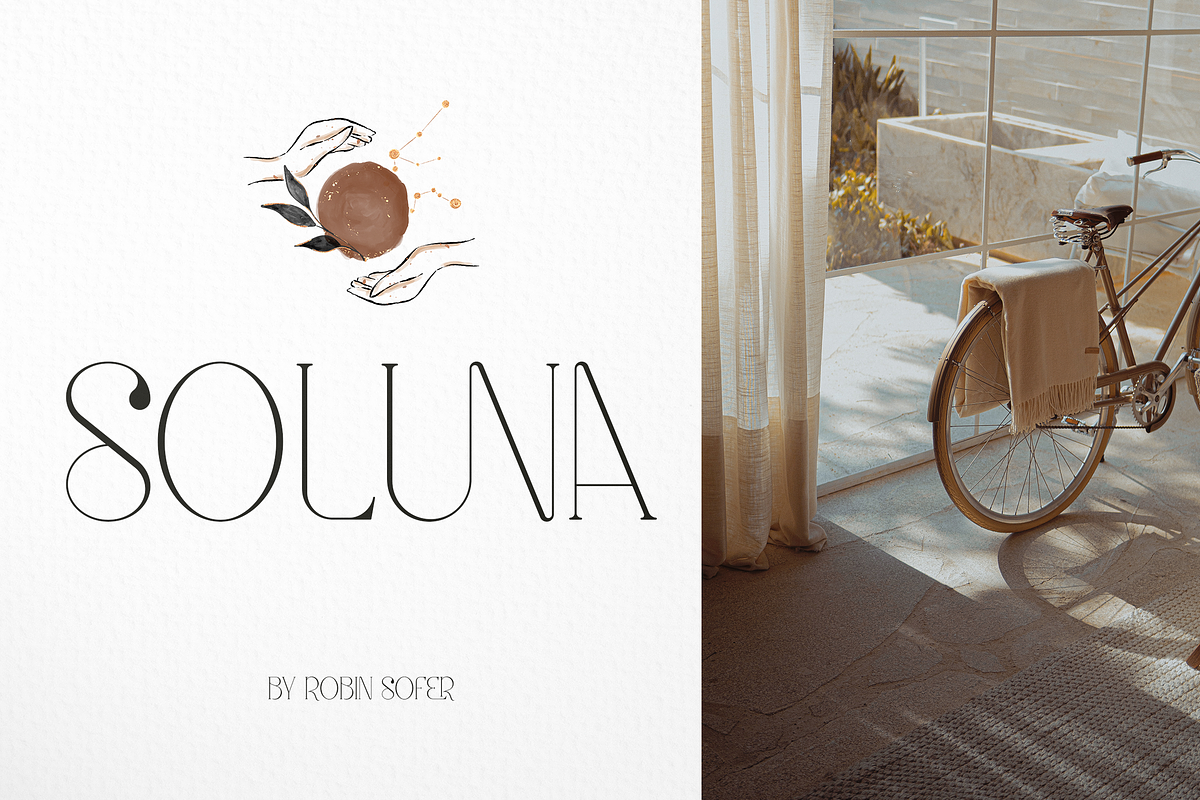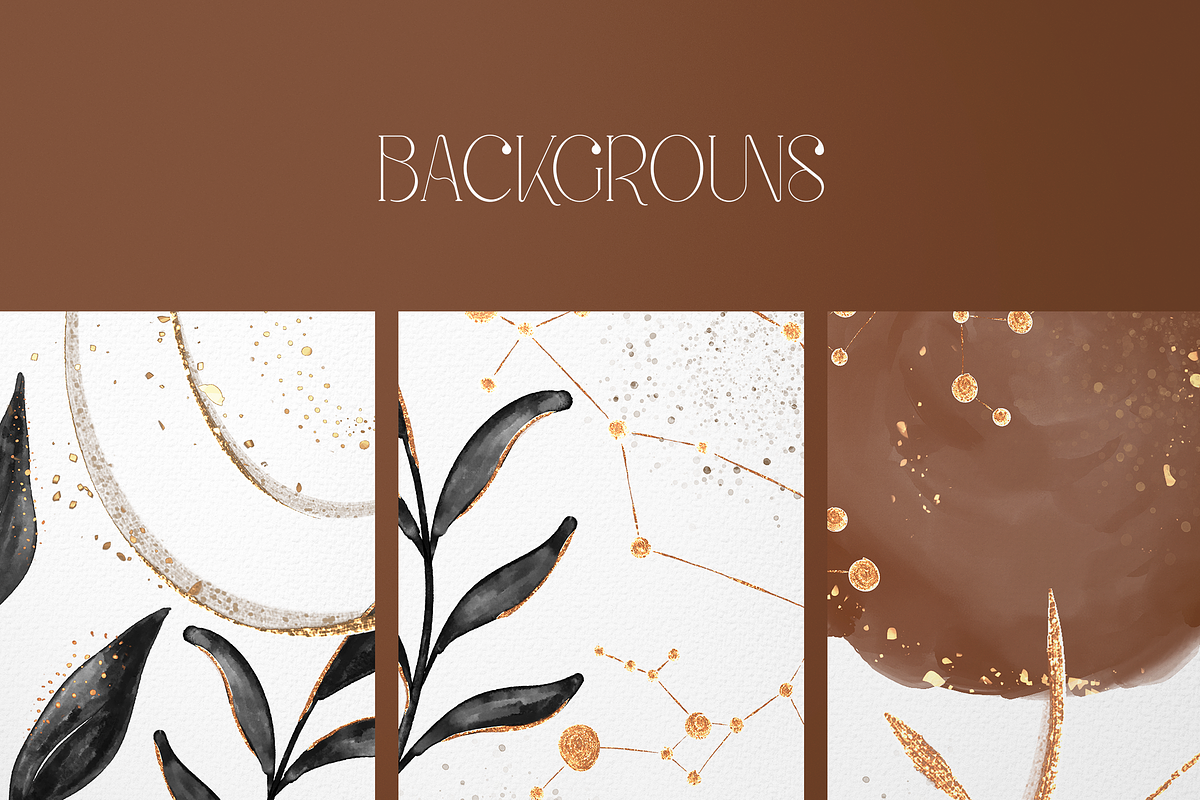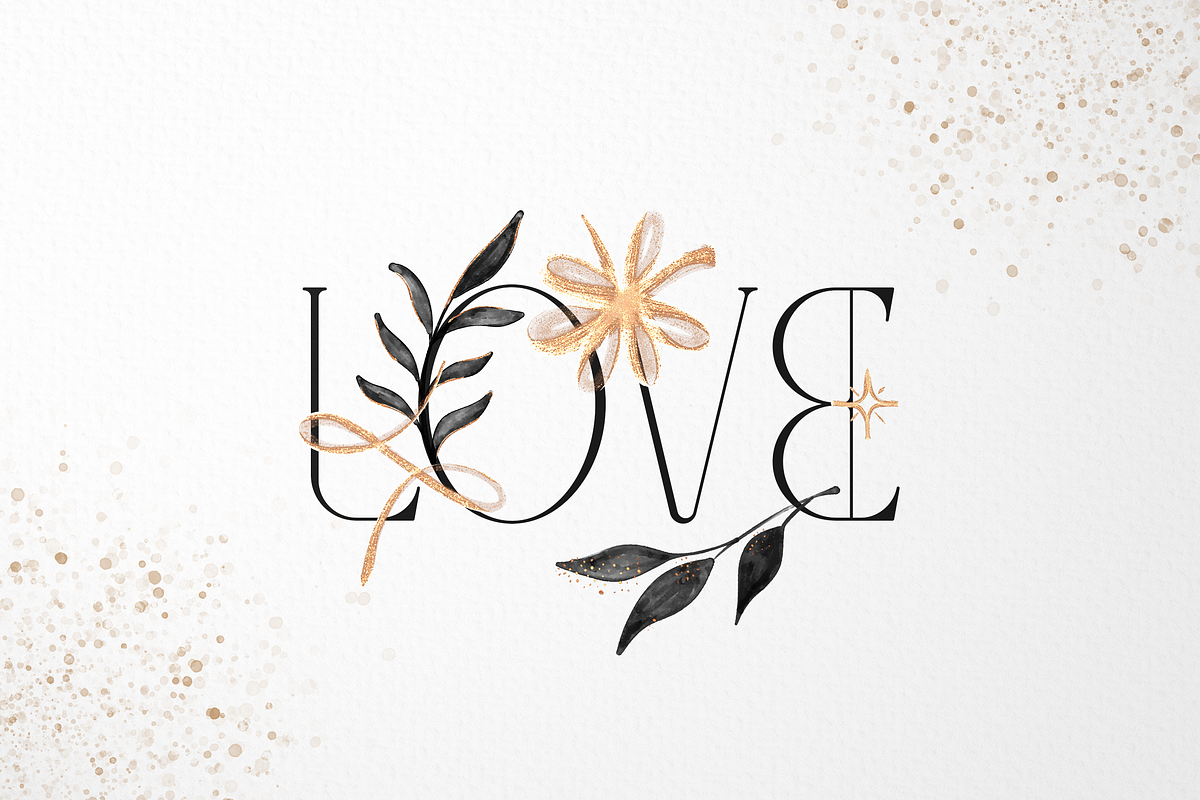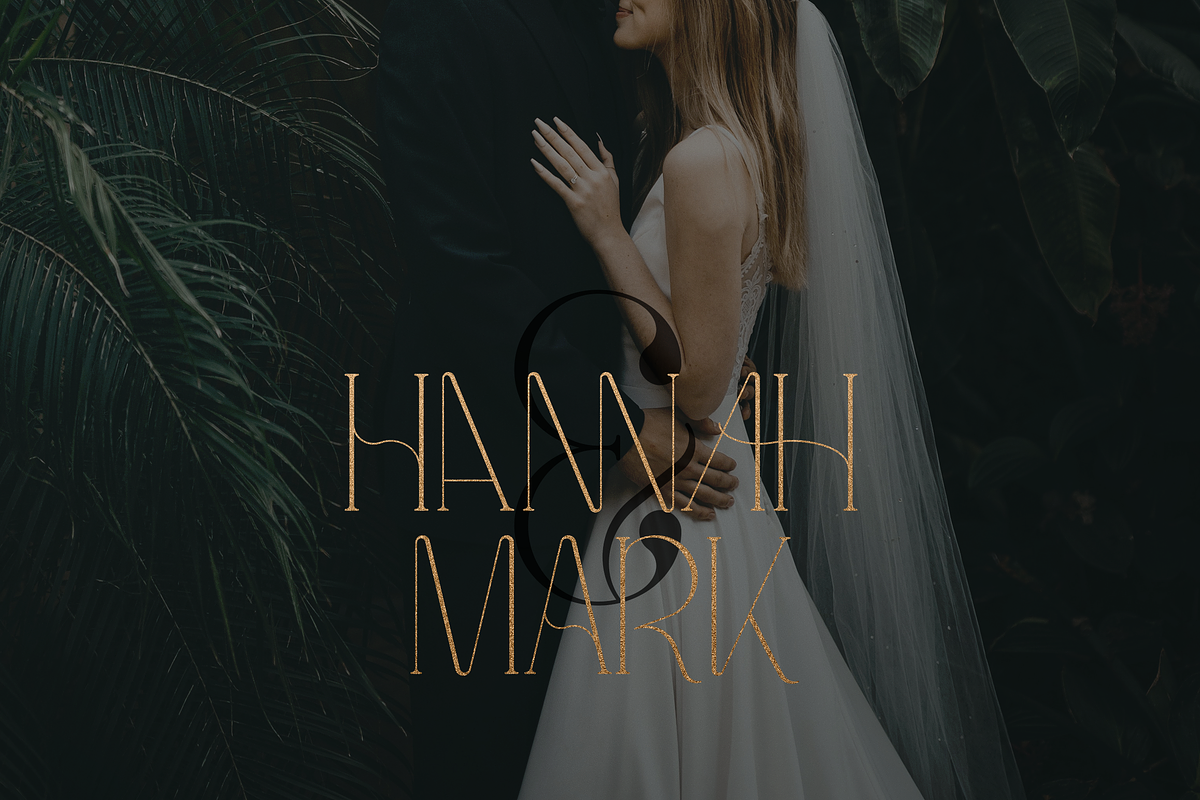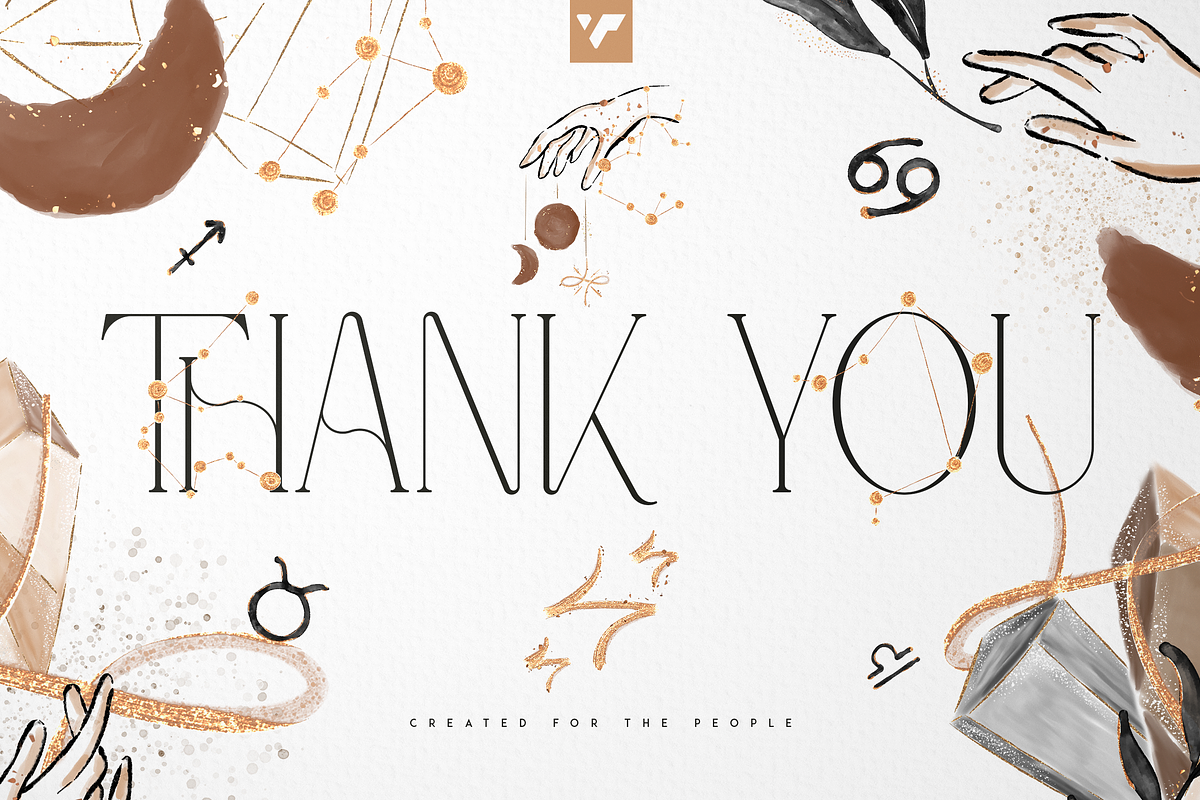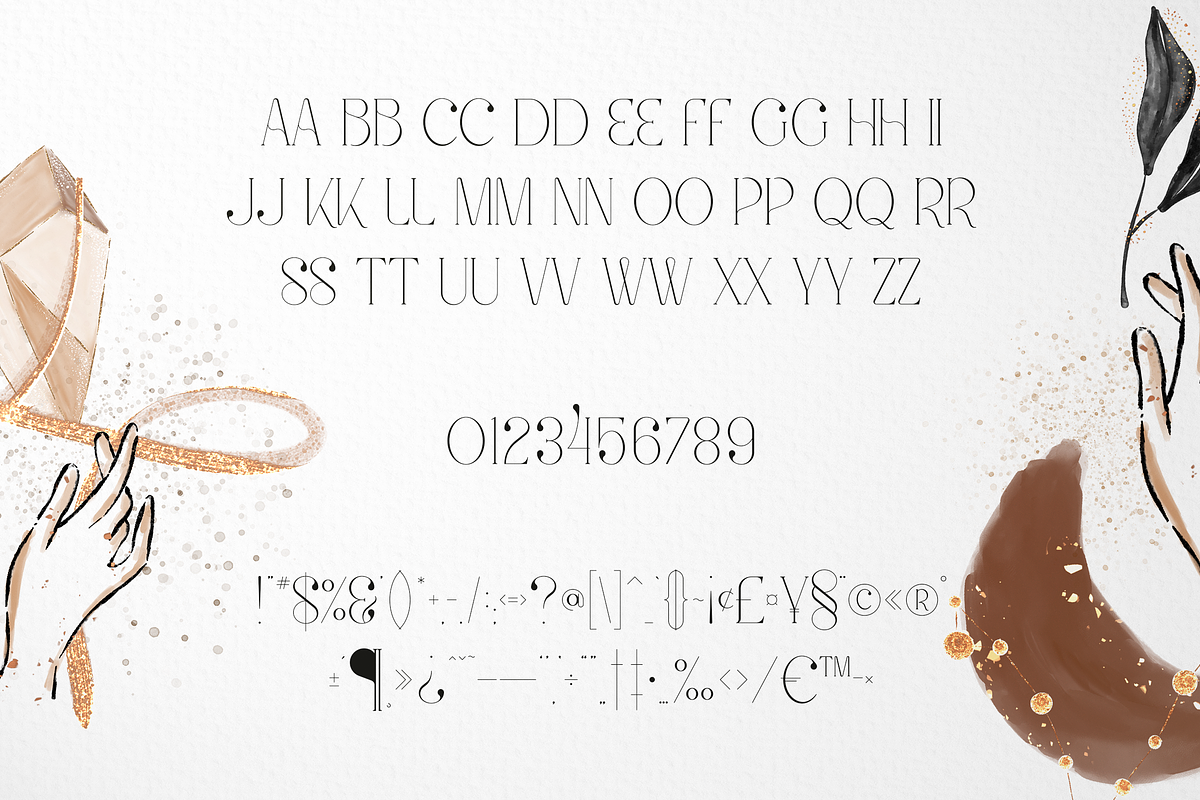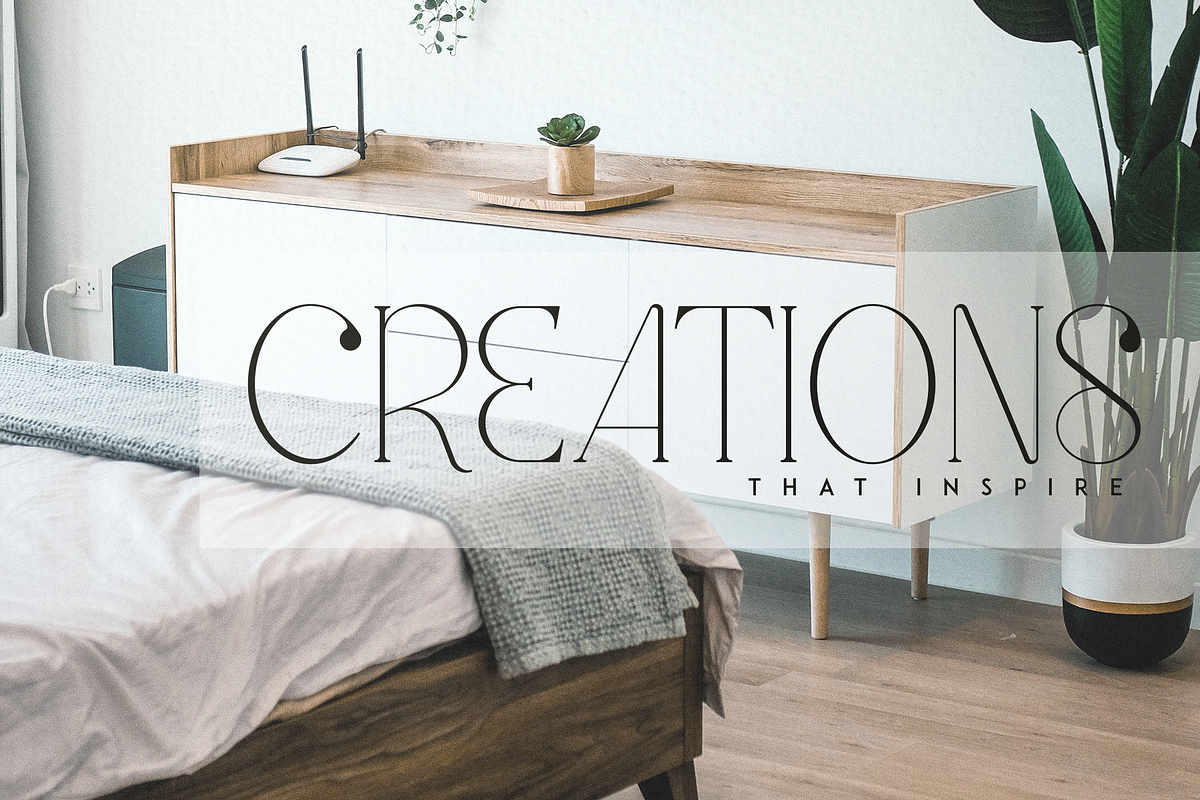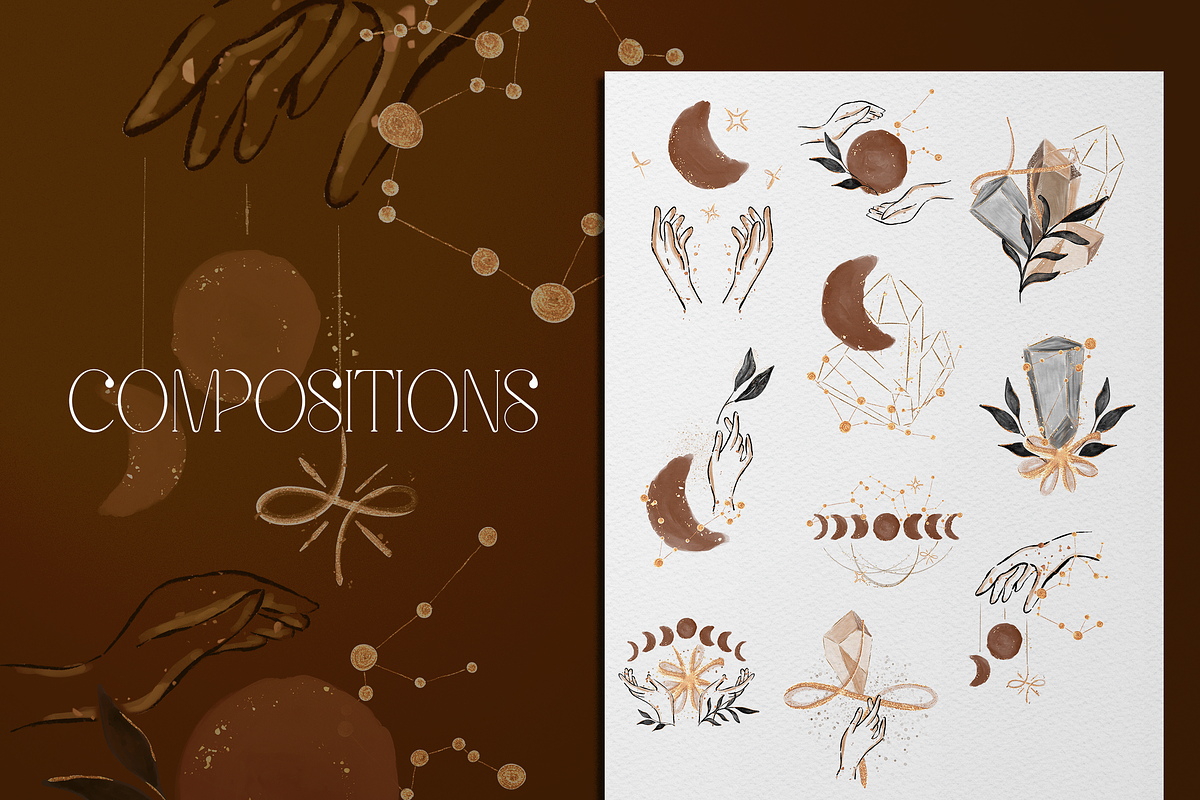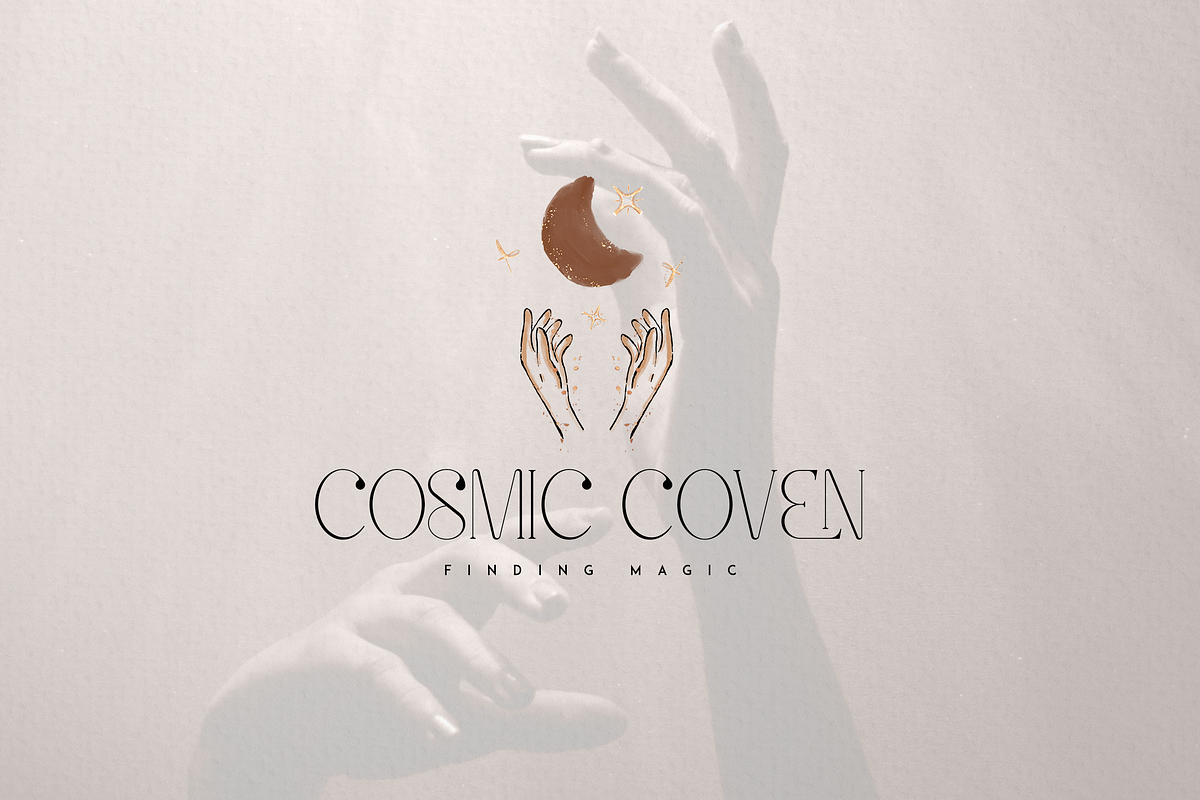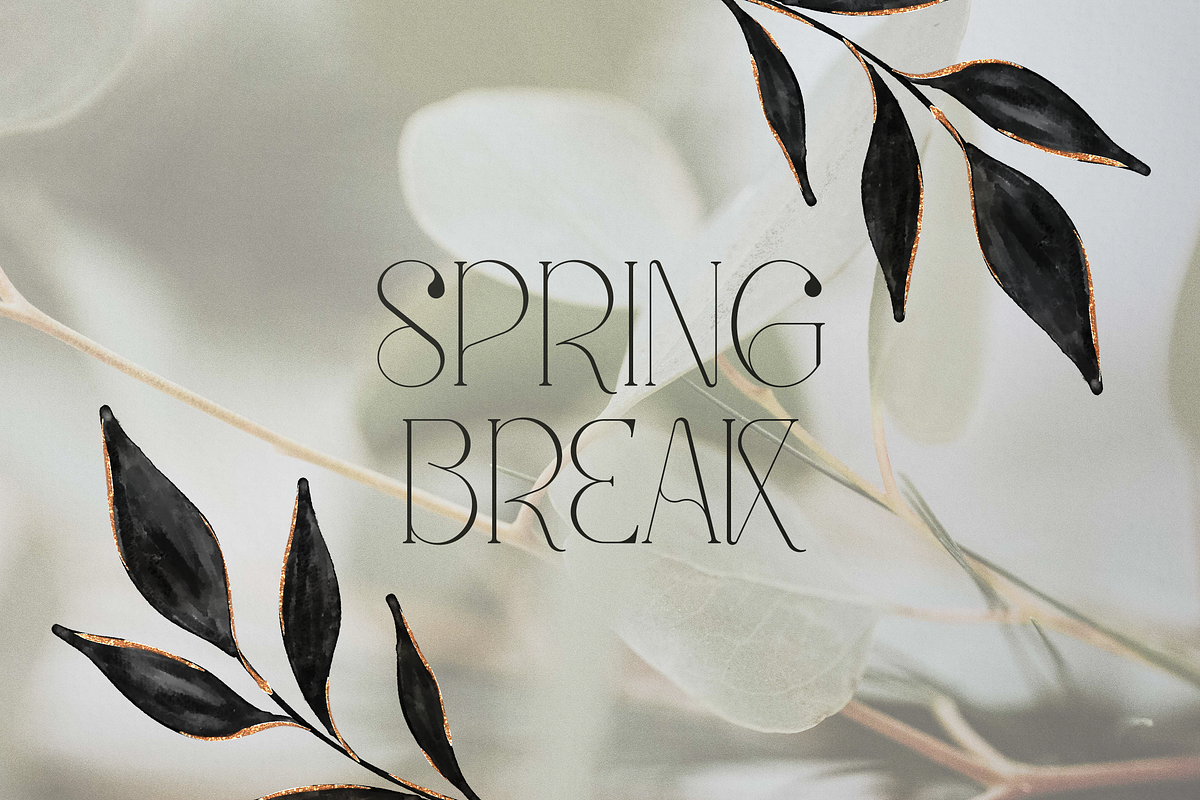
Meraki display font + more
Introducing Meraki display font ( latin and Cyrillic +astral elements and compositions
Meraki is stylish and creative font loaded with 95 languages support, alternate and ligature glyphs, astral elements and compositions to make you typography truly unique!
Language Support : Belarusian, Bosnian, Bulgarian, Chechen, Macedonian, Russian, Serbian, Afrikaans, Albanian, Asu, Basque, Bemba, Bena, Breton, Chiga, Colognian, Cornish, Czech, Danish, Dutch, Embu, English, Estronian, Faroese, Filipino, Finnish, French, Friulian, Galician, Ganda, German, Gusii, Hungarian, Indonesian, Irish, Italian, Jola-Fonyi, Kabuverdianu, Kalenjin, Kamba, Kikuyu, Kinyarwadna, Litvian, Lithuanian, Lower Sorbian, Luo, Luxembourish, Luyia, Machame, Makhuwa-Meetoo, Makonde, Malagasy, Maltese, Manx, Meru, Morisyen, North Ndebele, Norwegian Bokm ål, Norwegian Nynorsk, Nyankole, Ormo, Polish, Portuguese, Quechua, Romanian, Romansh, Rombo, Rundi, Rwa, Samburu, Sango, Sangu, Scottish Gaelic, Sena, Shambala, Shona, Slovak, Soga, Somali, Spanish, Swahili, Swedish, Swiss German, Taita, Teso, Turkish, Ukrainian, Upper Sorbian, Uzbek (Latin), Volap ük, Vunjo, Walser, Welsh, Western Frisian, Zulu
- Uppercase, lowercase, numeral, punctuation & Symbol
- ligature glyphs
- alternates
- Multilingual support - 95 languages
- Cyrillic support
Graphic Elements
- 3 Backgrounds
- 10 compositions
- 15 branches
- 20 crystals
- 26 elements
- 6 hands
- 20 stars
- zodiac signs